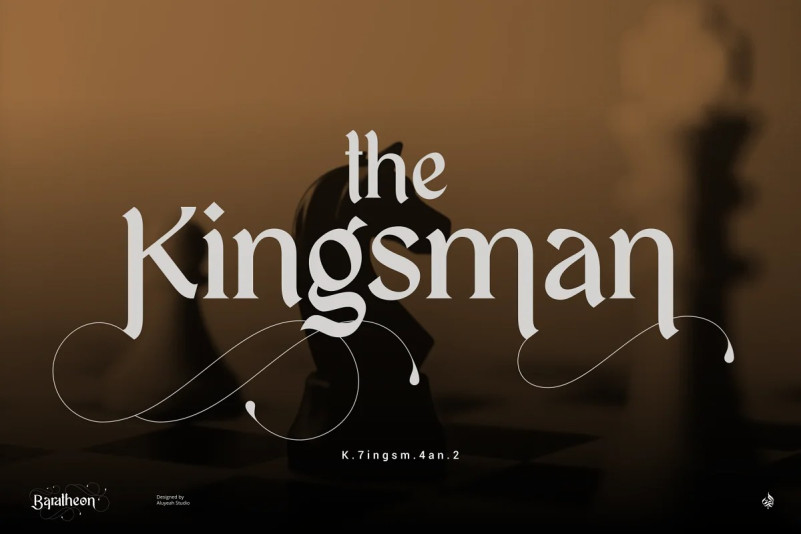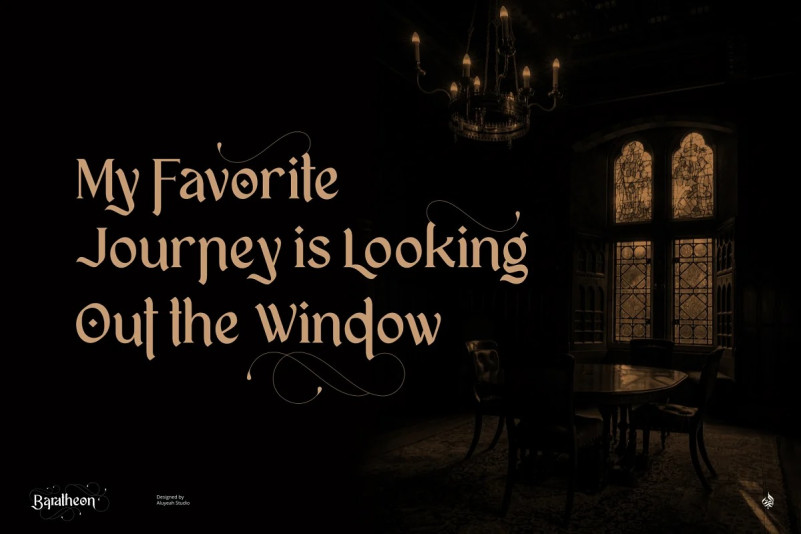
Baratheon Font
Baratheon Font, Be the King or Queen of your project with Baratheon. This display font is inspired by Medieval Knights and crafted with attention to detail. Feel like a Lord or Lady and show your inner King or Queen with Baratheon.
Its strong curves and legible shapes make it perfect for logo designs, magazine titles, and any other project that requires an extra dose of regal elegance. It will surely add an authentic touch of Medieval grandeur to any project!
Coming with 200+ stunning and super easy to use alternates and ligatures with quick access.